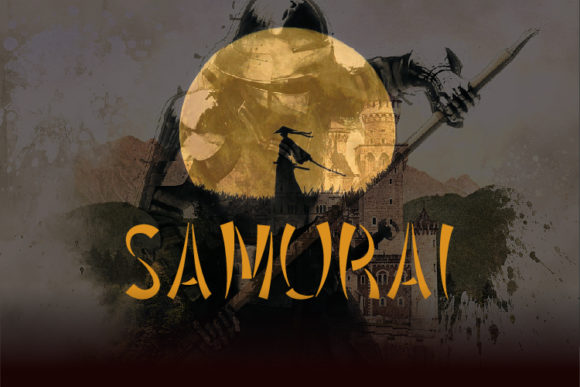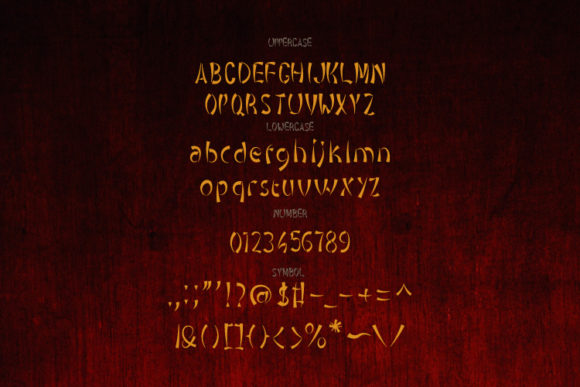
Introduction to Ninja Display Font
Have you ever been working on a creative project, and you just can’t seem to find the right font to bring it to life? You’ve got a great idea, but it’s just missing that extra oomph. Well, we’ve got the solution for you – the Ninja Display Font.
This incredibly fun and interesting display font is a game-changer for designers. With its unique design and high quality, it’s the perfect addition to any creative project. Whether you’re working on a logo, a poster, or even just a social media graphic, the Ninja Display Font is sure to make it stand out. Plus, with its transparent background option, you can easily customize it to fit your design needs.
Key Features of Ninja Display Font
- High-quality design resource with a unique ninja-inspired aesthetic, perfect for creative projects and designs.
- Designed with a bold and eye-catching style, ideal for headings, titles, and other prominent design elements.
- Perfect for use in digital designs, such as website headers, social media graphics, and advertising materials.
Honest Review: Ninja Display Font
I recently had the chance to experiment with the Ninja Display Font, and I must say, it’s been a fun addition to my design resources. The font’s unique aesthetic is perfect for adding a touch of personality to any creative project.
The font itself is a high-quality, bold display font that’s ideal for use in headings or titles. It’s a great choice for designers looking for a font that makes a statement. I was able to easily download the font for free and use it in a variety of design projects.
- ✨ Unique and bold design style that adds personality to creative projects
- ✨ High-quality font that’s perfect for use in headings or titles
- ⚠️ Limited font family, so it may not be suitable for long blocks of text
Overall, I’m really impressed with the Ninja Display Font. It’s a great design resource that’s perfect for adding a touch of personality to any project. If you’re looking for a bold, eye-catching font, I’d definitely recommend giving it a try.
Ninja Display Font
The Ninja Display Font is a high-quality, free design resource ideal for creative projects that require a unique and eye-catching display font. This versatile font is perfect for designers looking for a bold and modern aesthetic.
The Ninja Display Font is ideal for use in presentations, social media graphics, and advertisements. Its transparent background and bold design make it perfect for overlaying text on images or videos.